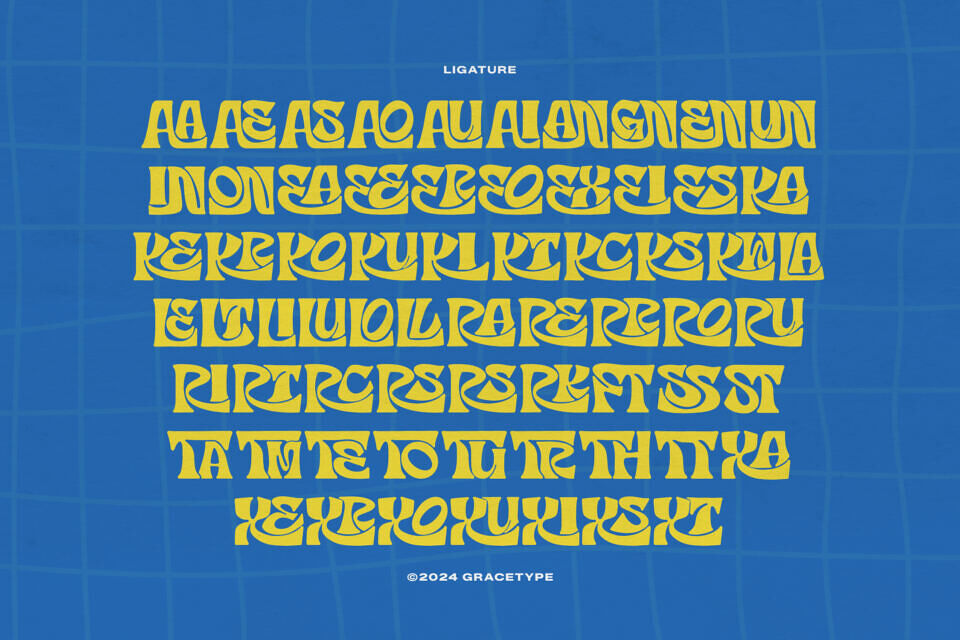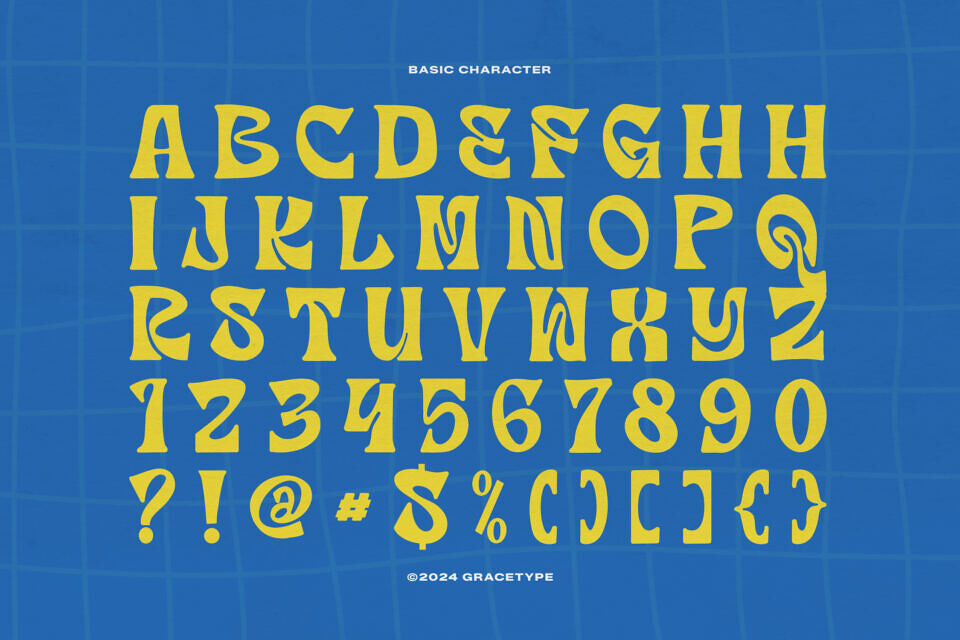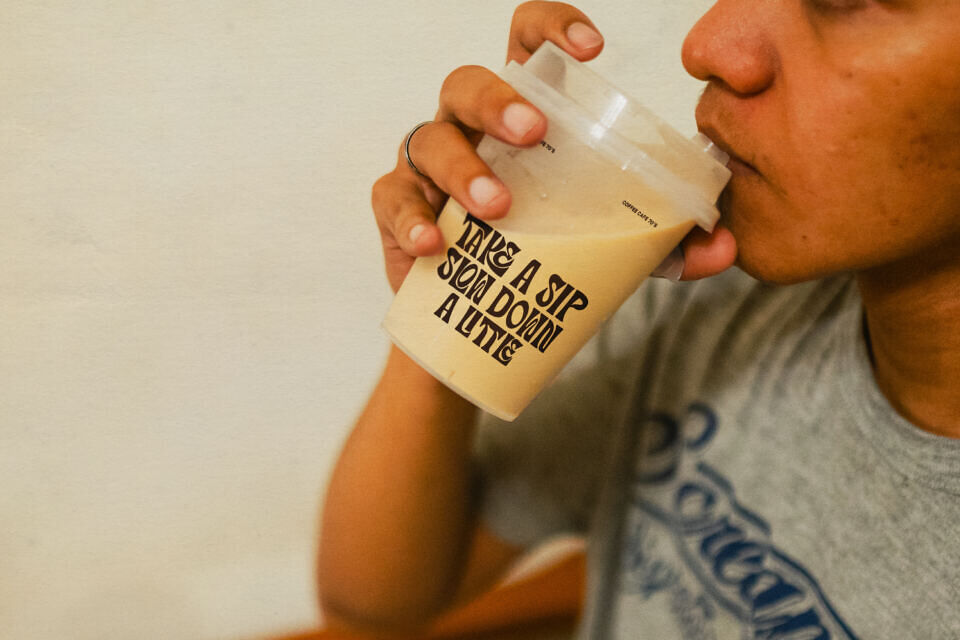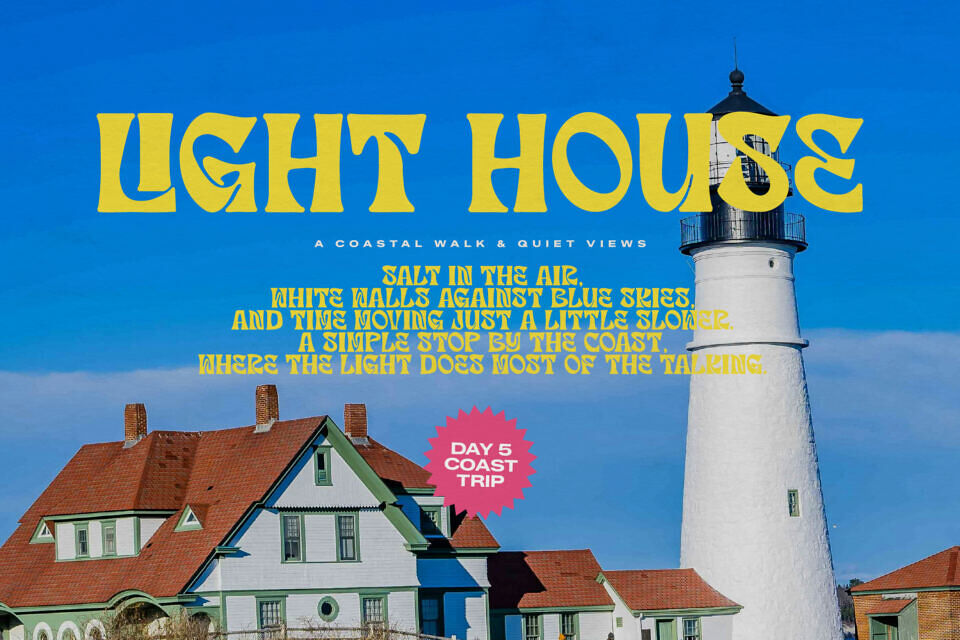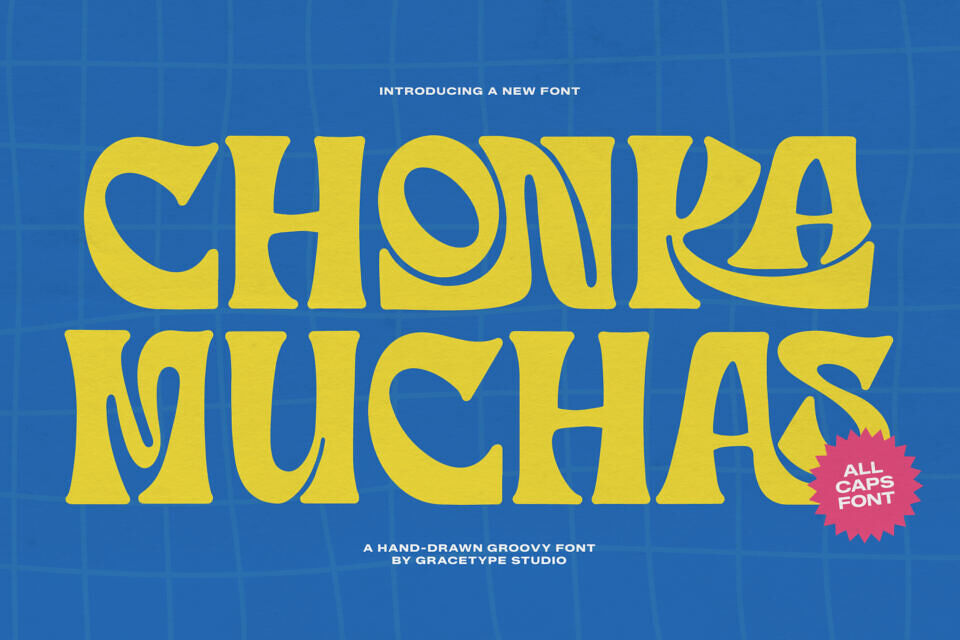
Chonka Muchas Font
This all-caps Chonka Muchas typeface is characterized by its extreme weight contrast and wavy, distorted silhouettes that appear to be melting or dancing on the page. Perfect for retro poster art, bold streetwear, and vintage-inspired branding, the Chonka Muchas font captures the rebellious and artistic spirit of the 1960s and 70s.
The interlocking nature of this Chonka Muchas typeface allows for creative letter-stacking, making it an ideal choice for high-impact logos and album covers. Pair it with vibrant, high-saturation colors and grainy textures to enhance its trippy, analog feel and make your typography the center of attention.